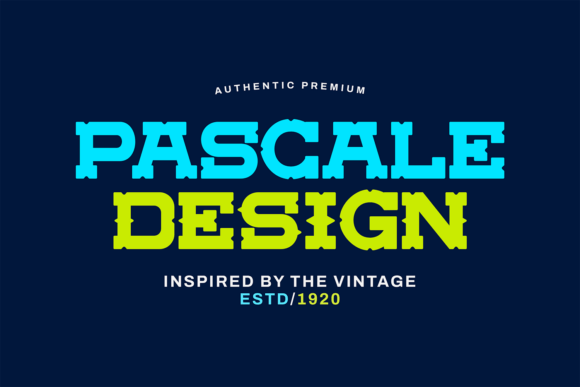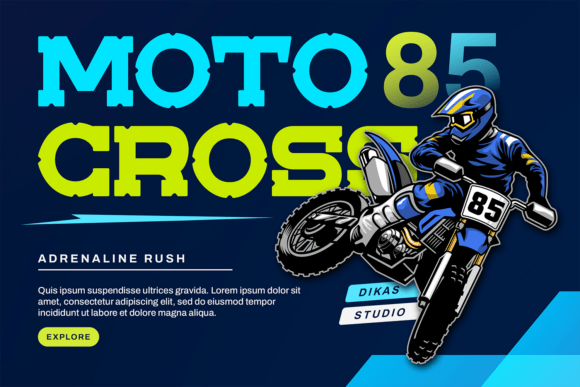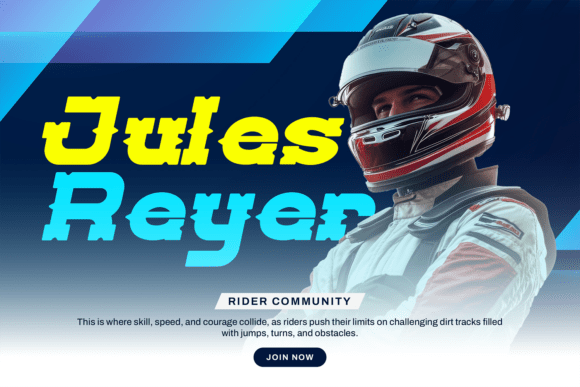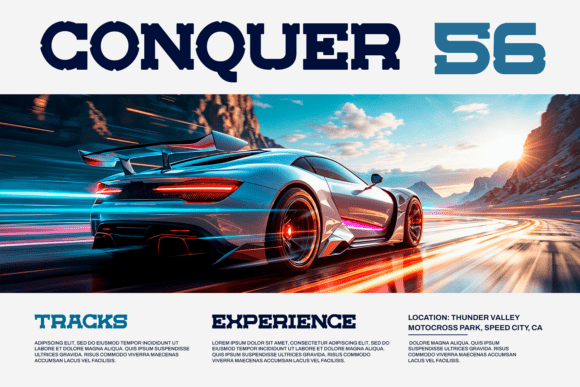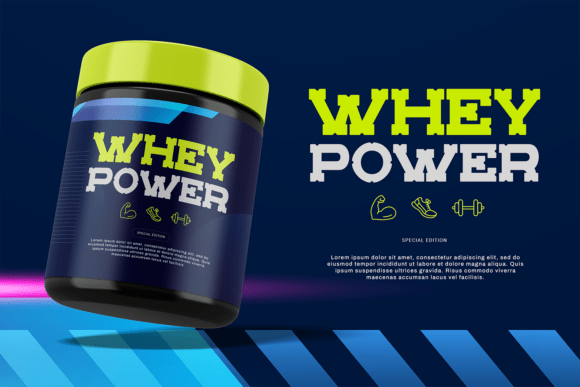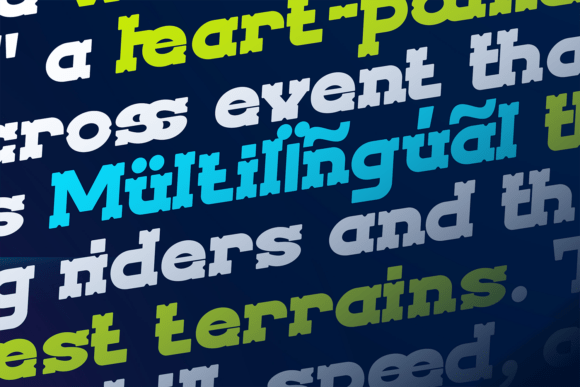
Unleash the Power of Goldtrail Regular Font
Imagine a moment when your design makes a lasting impression on your audience. The lights dim, the crowd holds its breath, and your message shines through like a beacon of confidence. That’s what Goldtrail Regular Font is designed to achieve – an instant connection with your viewers, leaving a lasting impact that’s hard to ignore.
Goldtrail Regular Font is a bold slab serif typeface crafted to exude strength, authority, and confidence. Its thick, weighty letterforms and pronounced slab-shaped serifs make it the perfect choice for logos, posters, headlines, sports branding, and advertising that demands bold visual energy. As a designer, you’ll appreciate the clarity, structure, and striking style that Goldtrail brings to the table – all without compromise.
- Unique Characteristics: The Goldtrail Regular font features a unique blend of modern and classic design elements, with a distinctive flair for elegance and sophistication
Goldtrail Regular Font Review
At first glance, Goldtrail Regular Font seems like a promising addition to any designer’s toolkit. ✨ The font’s sleek and modern aesthetic is sure to catch the eye, making it perfect for a wide range of applications.
Here are some of the key features that work well:
- Highly legible even at small font sizes ✨
- Modern and sleek design, ideal for contemporary designs ✨
- Good for use in both digital and print media ✨
However, like any font, Goldtrail Regular Font is not without its limitations:
- May not be suitable for use in formal or traditional contexts ⚠️
- Lacks a bold or italic variant, which may limit its versatility ⚠️
- May not be as distinctive or memorable as some other fonts on the market ⚠️
Overall, I would say that Goldtrail Regular Font is a solid choice for designers looking for a modern and legible font. While it may not excel in every area, its strengths make it a reliable addition to any toolkit. With some careful consideration of its limitations, Goldtrail Regular Font can be a valuable asset for designers looking to create clean and contemporary designs.
To get the most out of the Goldtrail Regular Font, use it for:
- Headings and titles for a clean and modern look.
- Body text for a professional and readable font.
- Creating a consistent brand identity.
The Goldtrail Regular Font is commonly used for:
- Brochures and flyers.
Alternatives to Goldtrail Regular Font
Open Sans is a modern sans-serif font that is highly legible and versatile. It is suitable for body text, headings, and titles. Use it for digital products, websites, and mobile applications. Open Sans is similar to Goldtrail Regular Font in its clean and minimalist design, but it has a more geometric and modern feel.
Lato is a sans-serif font that is highly readable and elegant. It has a humanist touch and is suitable for body text, headings, and titles. Use it for websites, mobile applications, and print materials. Lato is similar to Goldtrail Regular Font in its clean design, but it has a more refined and sophisticated feel.
Montserrat is a sans-serif font that is highly legible and geometric. It is suitable for body text, headings, and titles. Use it for digital products, websites, and mobile applications. Montserrat is similar to Goldtrail Regular Font in its clean design, but it has a more urban and modern feel.
Avenir is a geometric sans-serif font that is highly legible and elegant. It is suitable for body text, headings, and titles. Use it for print materials, websites, and mobile applications. Avenir is similar to Goldtrail Regular Font in its clean design, but it has a more classic and sophisticated feel.